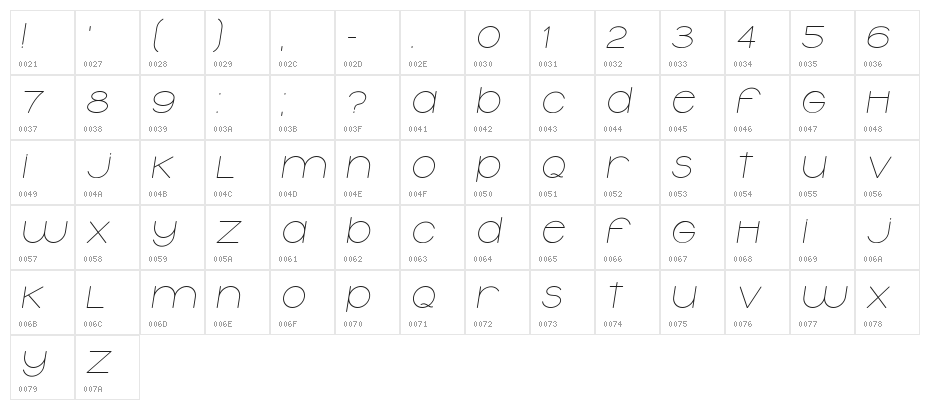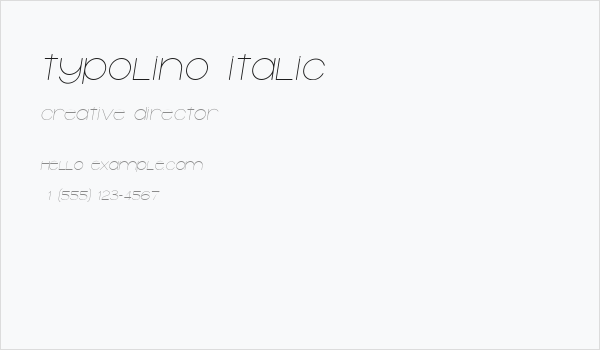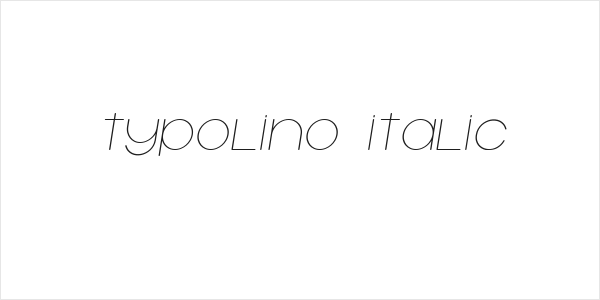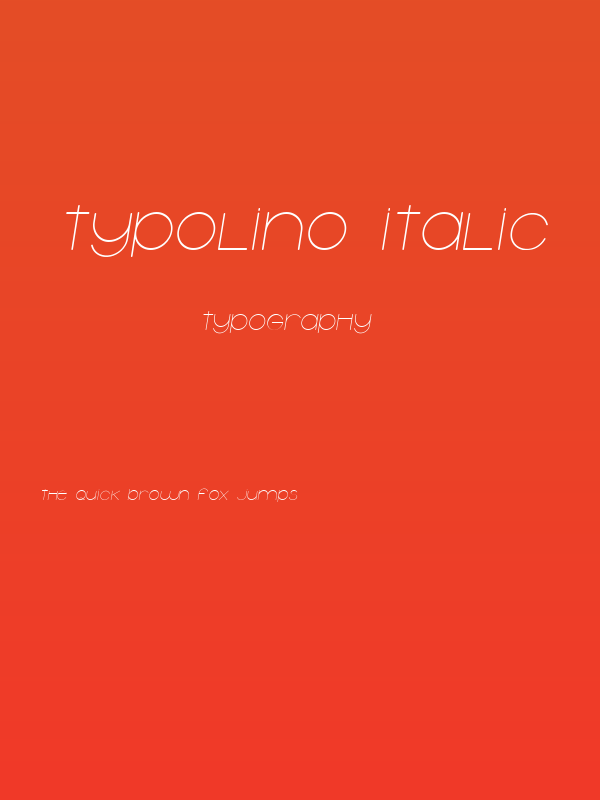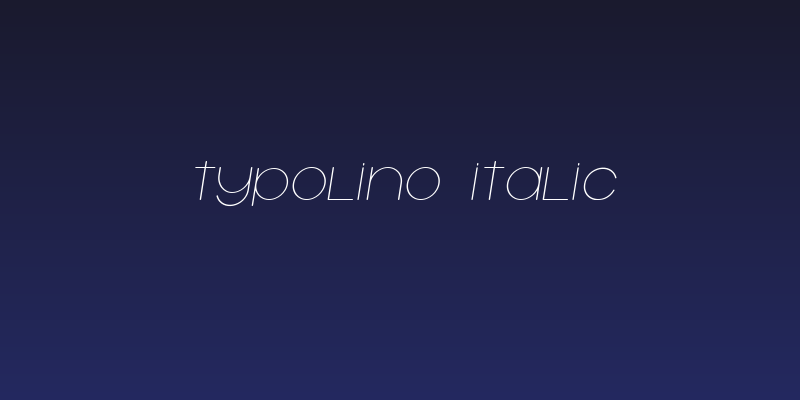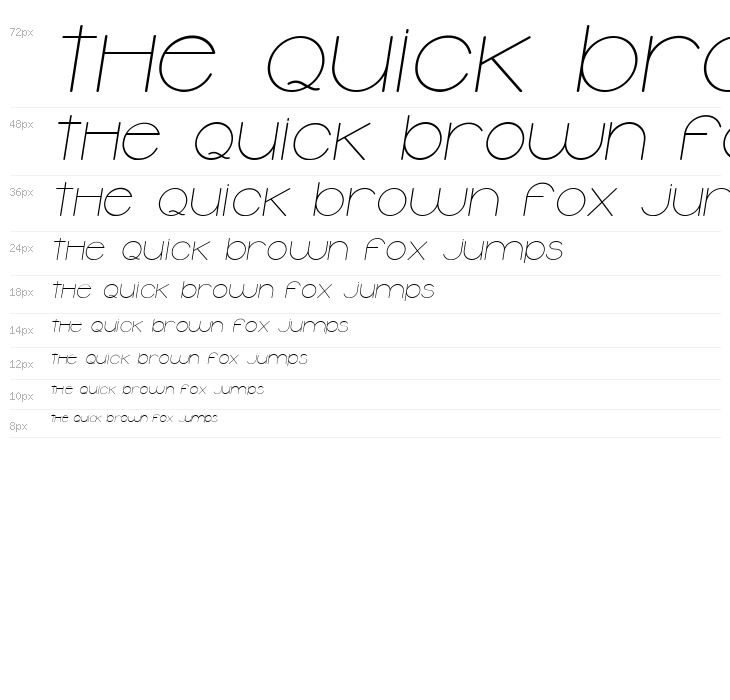
Typolino Italic Font
Typolino Italic Description
This font features a sleek and modern design with a distinct italic slant, giving it a dynamic and fluid appearance. The characters are crafted with a thin, consistent stroke that maintains a clean and elegant look. The uppercase and lowercase letters are well-balanced, with rounded edges that add a touch of softness to the overall style. The numerals are clear and easy to read, matching the aesthetic of the alphabetic characters. Special characters are included, maintaining the same stylistic approach, ensuring versatility in various text compositions.
| Proposed Projects | Ideal for modern branding, editorial design, fashion magazines, and digital interfaces. |